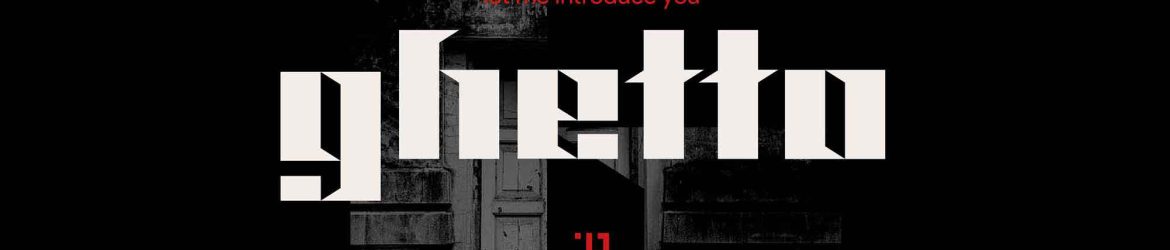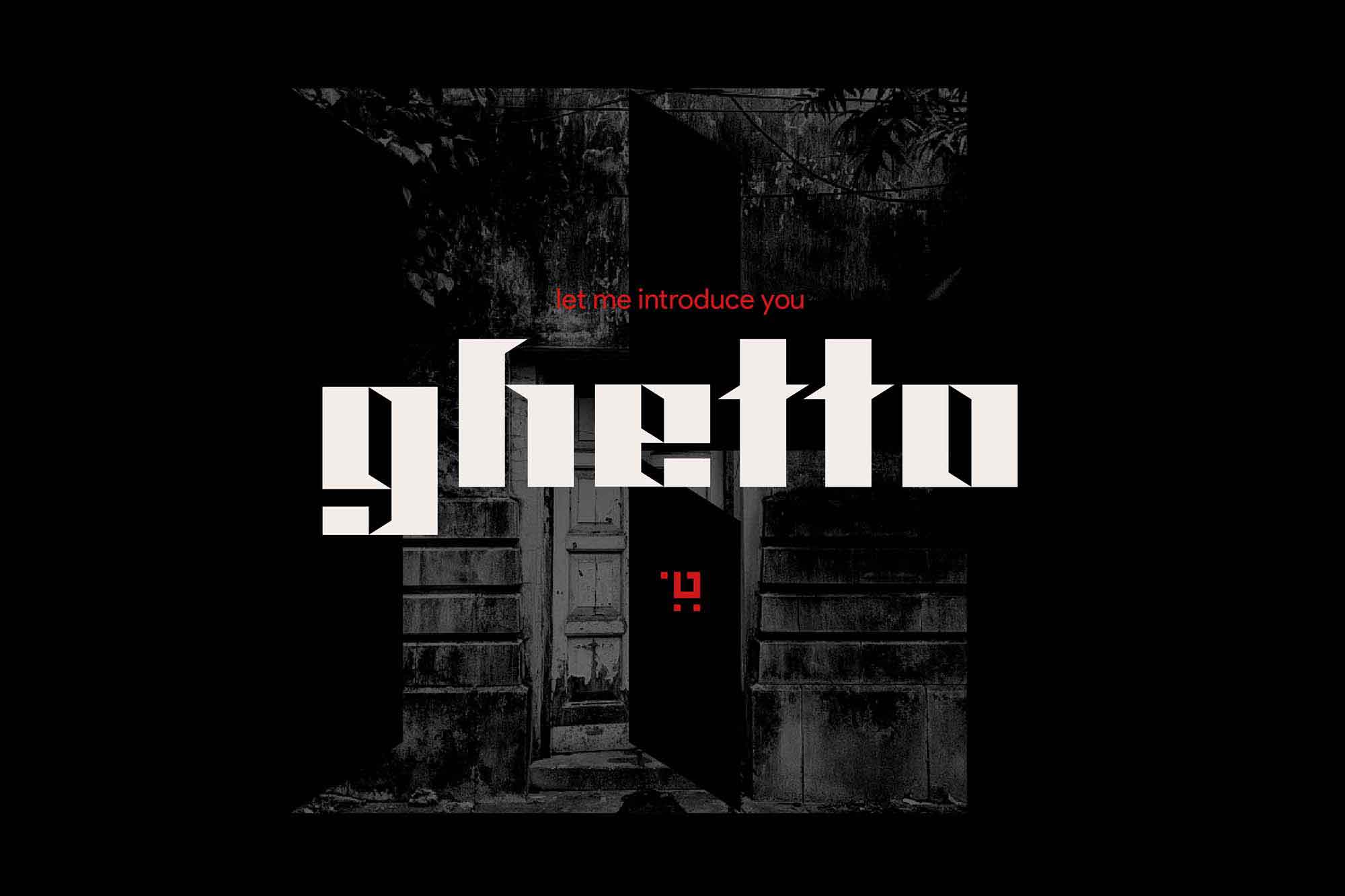
Ghetto Display Font – Download Grátis
Ghetto Display Font
Ghetto is a display geometric font with a bold body and strong character that makes it suitable for headings. The typeface by Thetpainghtwe has a well-studied structure built upon a uniform grid which adds to its clarity and simplicity. It is in some way a more simplistic descent of the famous blackletter fonts, a modern version so to speak.